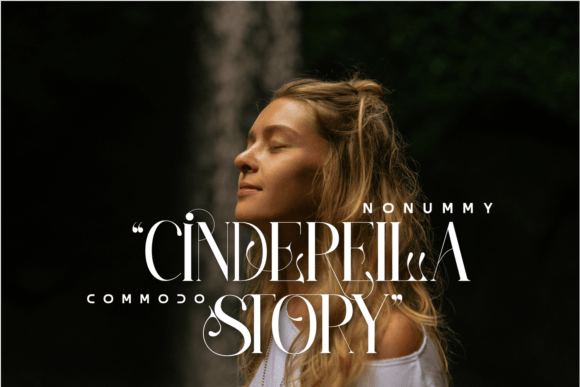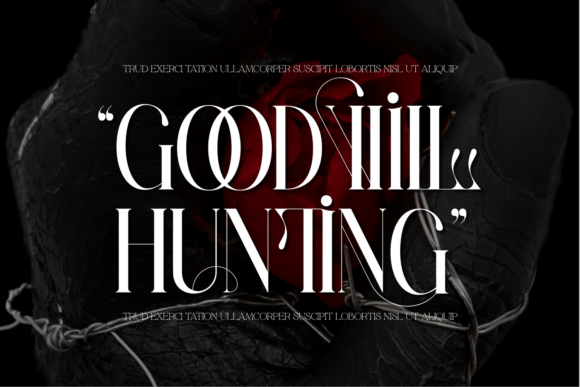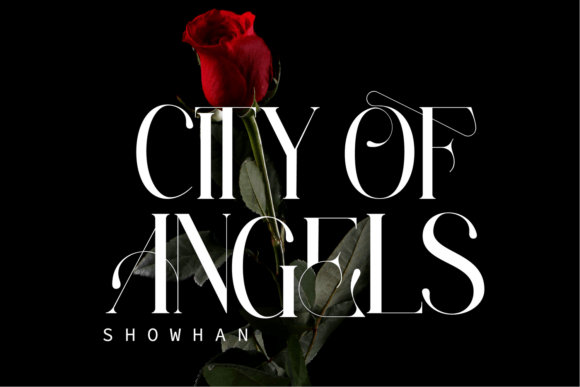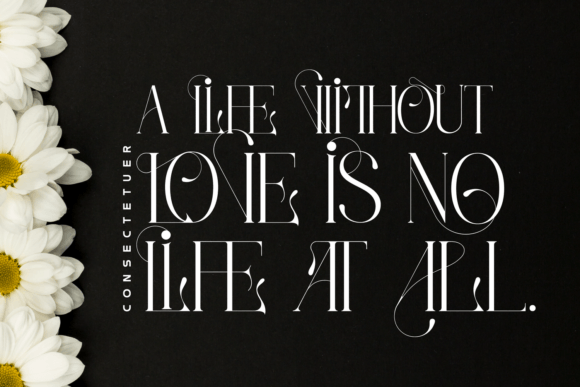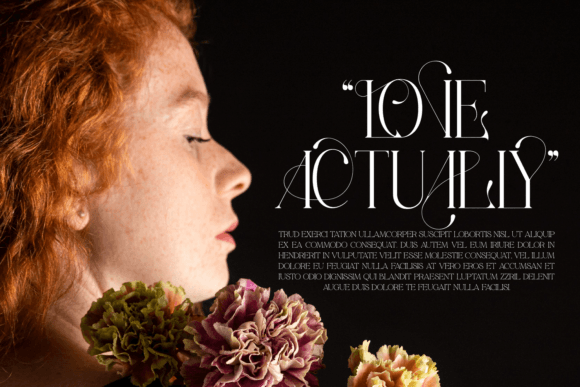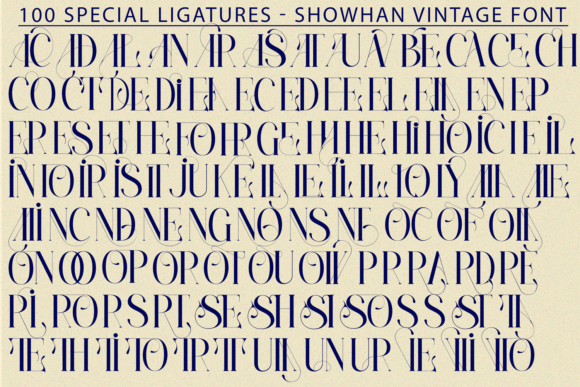
Introduction to Showhan Vintage Font Font
Fonts play a crucial role in design, and the Showhan Vintage Font font is a typeface that brings both character and versatility to any project. Whether you’re working on a branding project, a website, or a print design, the Showhan Vintage Font font offers a unique style that can elevate your work.
Showhan Vintage Font is a modern and classy serif font that embodies timeless elegance and luxurious appeal.
With its aesthetic charm and chic sophistication, itβs adds a touch of nostalgia to your designs Very suitable for logo, headline, tittle, and the other various formal forms such as invitations, labels, logos, magazines, books, greeting / wedding cards, packaging, fashion, make up, stationery, novels, labels or any type of advertising purpose.
Key Features of Showhan Vintage Font Font
Why Choose Showhan Vintage Font Font?
The Showhan Vintage Font font is more than just a typeface β it’s a design tool that helps you communicate your message with style and clarity. Its unique character set and versatile design make it suitable for a wide range of applications, from elegant invitations to bold headlines.
With its carefully crafted letterforms and balanced proportions, the Showhan Vintage Font font ensures readability and visual appeal across all mediums.
What makes Showhan Vintage Font font special?
The Showhan Vintage Font font stands out with its unique design, exceptional readability, and versatility across various design applications.